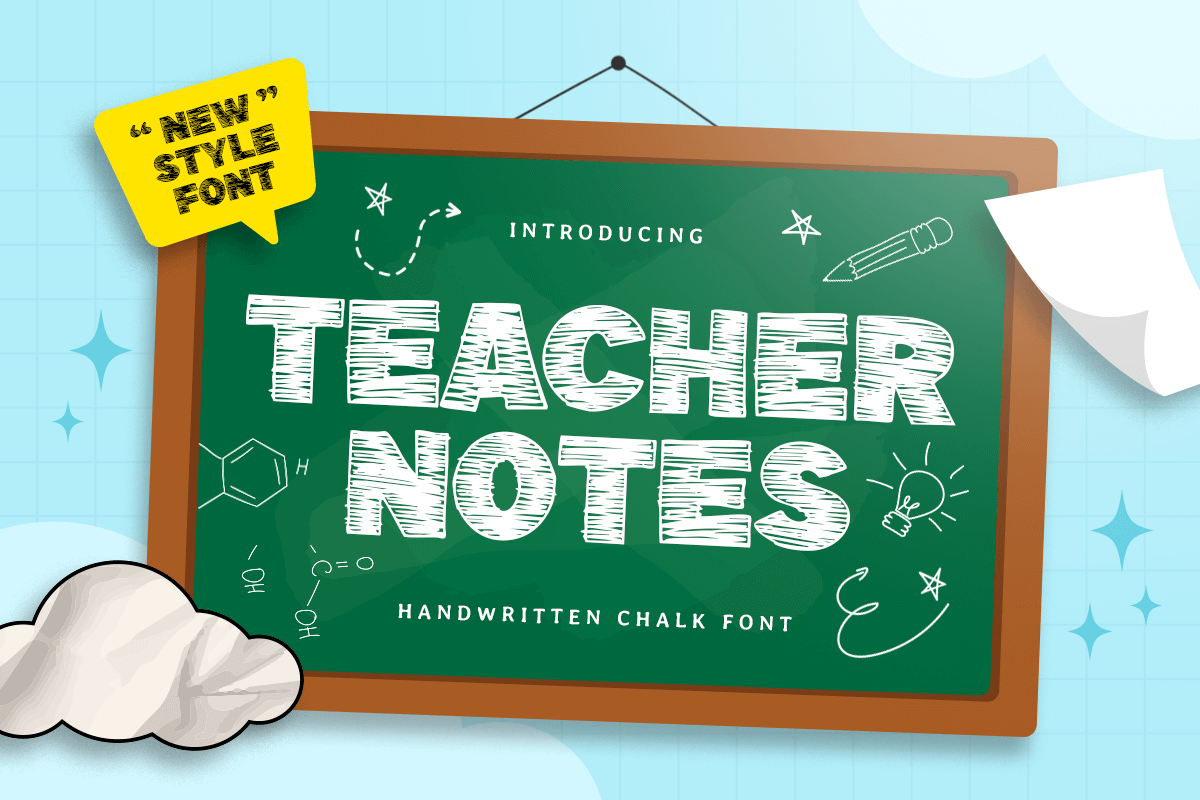
Teacher Notes
-Handwritten Chalk FontTeacher Notes - Handwritten Chalk Font
TEACHER NOTES is a handwritten chalk font designed to recreate the authentic look of real chalk writing on a blackboard. With a natural hand-drawn rhythm and slightly textured character, this font delivers a warm, friendly feel that’s perfect for education-focused visuals and informal note-style typography.
Built for classroom-inspired design, TEACHER NOTES works beautifully across worksheets, learning materials, classroom posters, lesson slides, flashcards, bulletin boards, educational branding, and social media graphics. Its chalky handwritten style keeps text expressive and approachable while remaining readable for headlines, labels, and short body text.
Whether you’re creating resources for teachers, designing kids learning content, building a classroom-themed project, or making study notes with a cozy blackboard vibe, TEACHER NOTES gives you a charming chalk handwriting style that feels authentic, fun, and instantly familiar.
Inspiration Behind TEACHER NOTES
TEACHER NOTES is inspired by classic classroom blackboards and everyday teacher handwriting—where quick strokes, informal spacing, and chalk texture make communication feel personal and approachable. The design focuses on natural handwritten movement and chalk-like character to support educational design with a warm, nostalgic classroom mood.
TEACHER NOTES Font Features:
Handwritten chalk letterforms with authentic blackboard character
Perfect for classroom notes, worksheets, and educational design
Friendly, casual rhythm for headers, labels, and learning content
Worksheets, lesson materials, and classroom resources
Blackboard-style posters, bulletin boards, and learning visuals
Educational branding, course slides, and presentation headers
Flashcards, study notes, labels, and kid-friendly layouts
Social media graphics for education content and teaching tips
Bring a warm classroom vibe to your designs with TEACHER NOTES—an authentic handwritten chalk font for friendly learning visuals. 🧑🏫✨